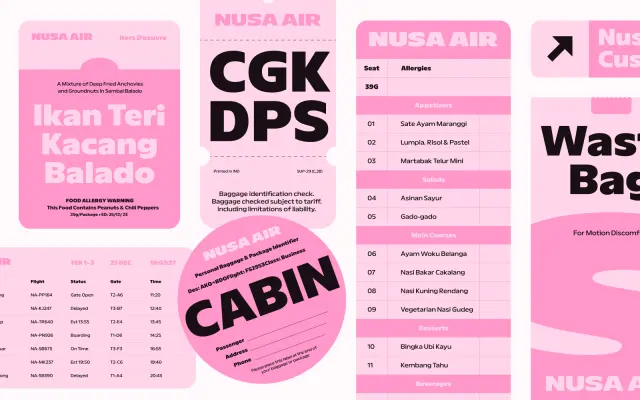
A geometric sans-serif from Indonesian foundry Tokotype, available in seven weights with italics and a variable font axis spanning the full weight range.
Available in seven weights from Light to Black with matching italics, Aksen also ships as a variable font in both upright and italic variants, making it flexible for screen and print contexts alike. The glyph set covers Latin Extended-A and -B alongside Latin Extended Additional, giving it broad coverage for European and Vietnamese languages. The specimen positions it for aviation branding and long-form editorial settings, suggesting a typeface suited to neutral, functional environments.
Aksen displays clean, structured letterforms consistent with a geometric sans-serif approach, with no visible humanist or grotesque idiosyncrasies evident from the specimen and glyph set.